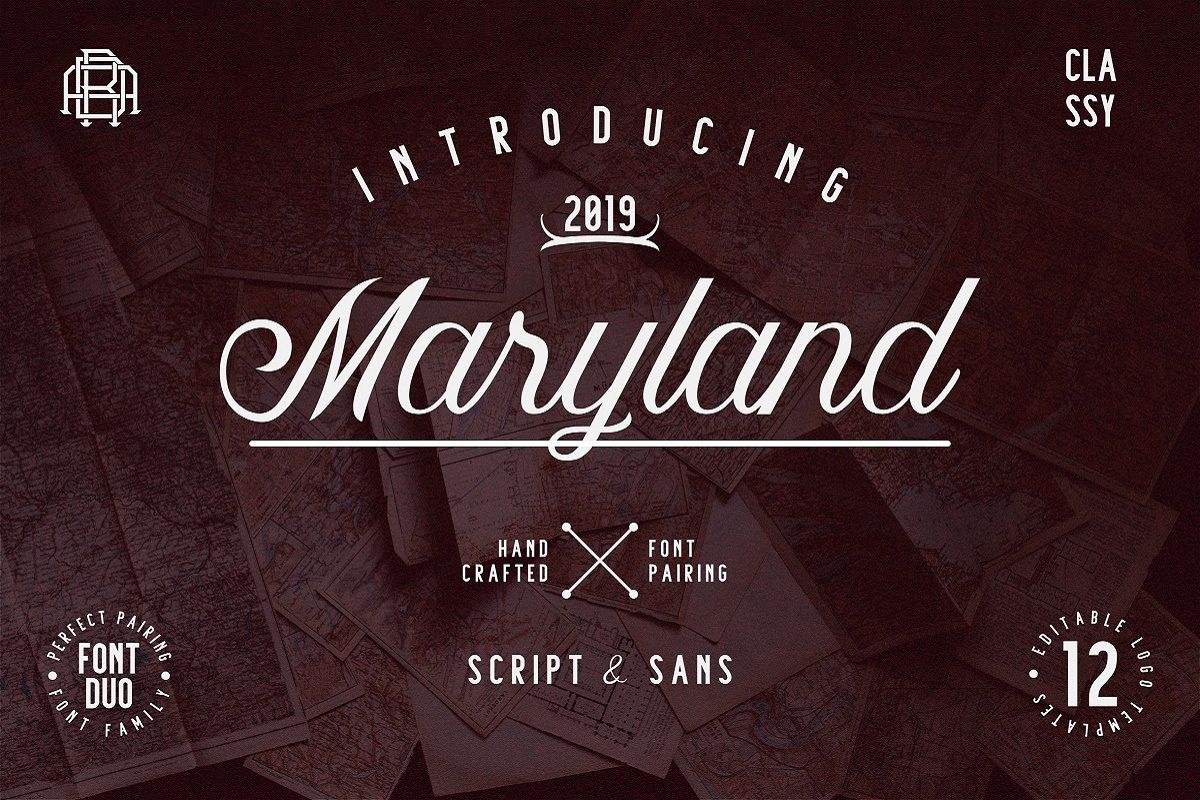
Maryland | Classy Font
Maryland comes with two styles, script and sans. This font is a perfect pairing for any purpose like logo, title, website, quotes, and etc. Maryland includes 12 editable logo templates, the text could be change, these logo templates are using Maryland script and sans font pairing
-Script and sans font
-perfect font pairing